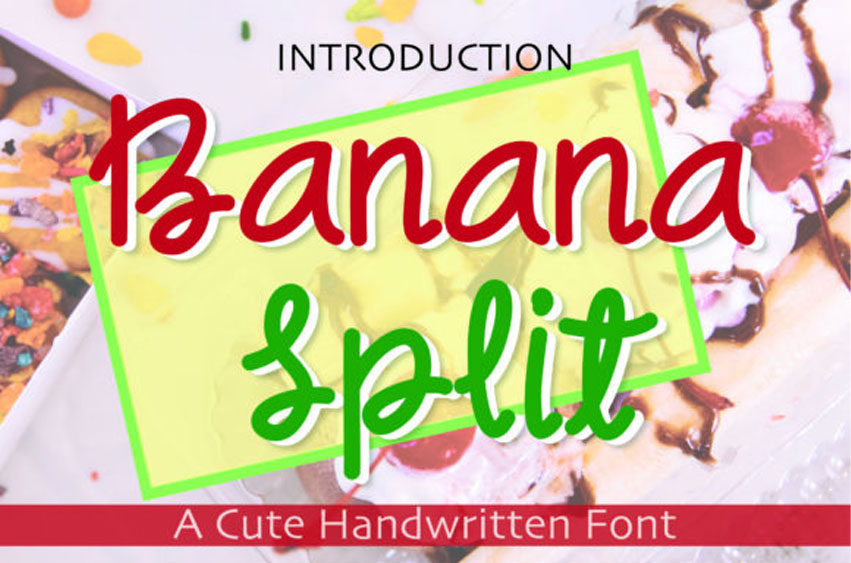
Banana Split Font
Banana Split Font is a cute and quirky handwritten font.
Whether you use it for cartoon-related designs, children’s games, or just any creation that requires a lovely touch, this font will be an amazing choice.